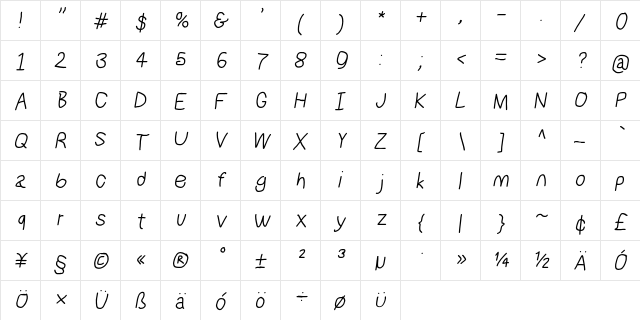
NumbBunny Ita
Design Context for NumbBunny Typeface
NumbBunny is a composed and adaptable typeface that performs quietly and consistently across a wide range of design contexts. The dynamic lean of this cut emphasises speed and emphasis in any layout.
Pro Tip: Use NumbBunny for emphasis, pull quotes, and subheadings where its slanted energy can add rhythm to the layout.